Deciding upon a single typeface to get your point across is easy, but figuring out which typefaces match is something even design experts often get wrong. How do you find the chocolate to Perpetua’s peanut butter then, or the goose to Garamond’s gander? You put them through the paces of the Type Connection, a typographic dating game.
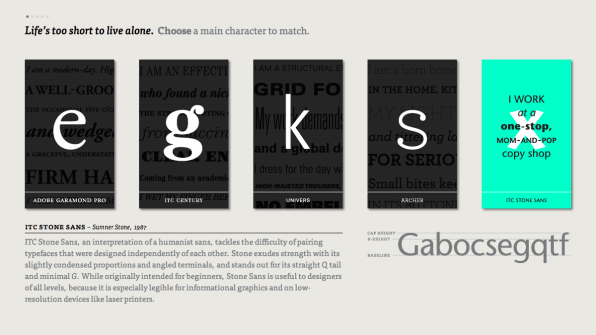
It’s actually far less silly than you’d expect. Designer Aura Seltzer, a Maryland College Institute of Art MFA student who created The Type Connection for her thesis project, explains how it works:
Start by choosing a typeface to pair. Like a conventional dating website, Type Connection presents you with potential “dates” for each main character–without the misleading profile photos and commitment-phobes. The game features well-known, workhorse typefaces and portrays each as a character searching for love. You are the matchmaker. You decide what kind of match to look for by choosing among several strategies for combining typefaces. Along the way, you explore typographic terminology, type history, and more. By playing Type Connection, you deepen your own connection with type.
Also at play are pairing strategies. When choosing a font, you can rely upon family type, similar typefaces, embracing opposites, or exploring historically linked fonts to find a match. Sometimes, the results will surprise you: the sans serif Univers and a Linotype Centennial that looks more formal and elegant because of its serifs go quite well together, for example. But just like setting up friends on a blind date, more pairings than not will just blow up in your face.